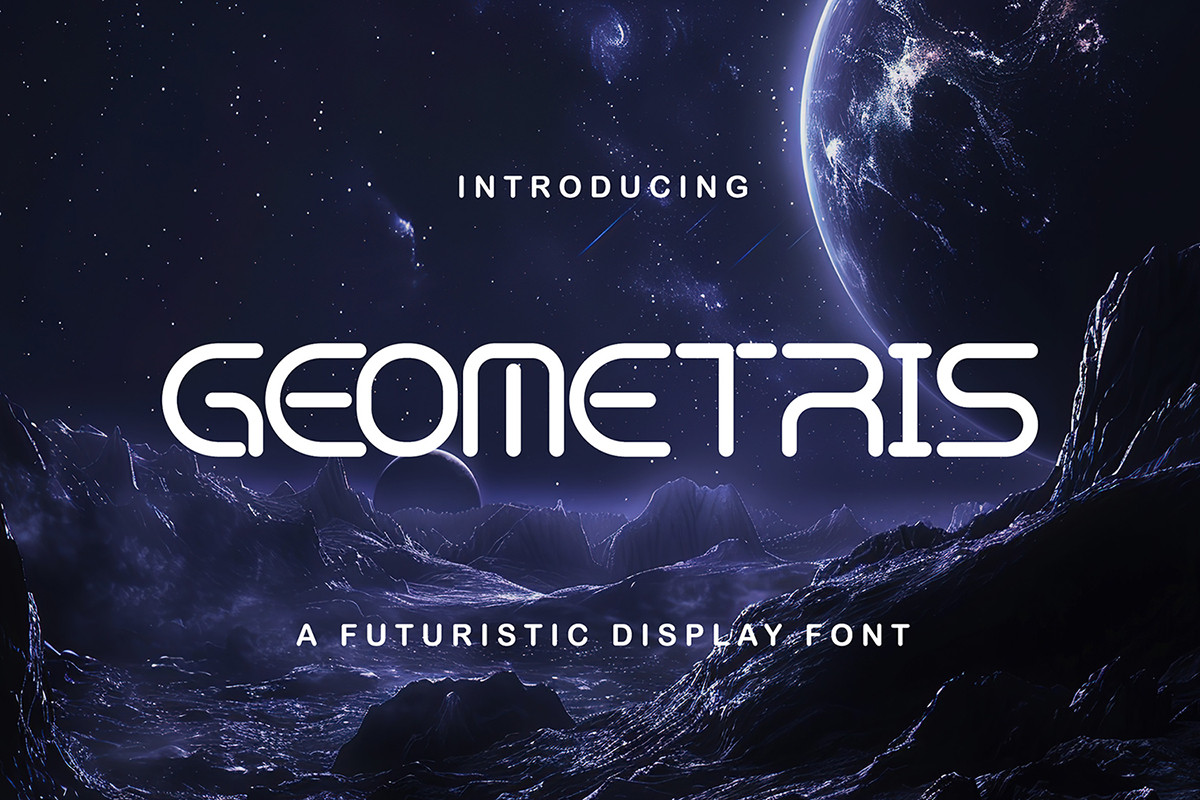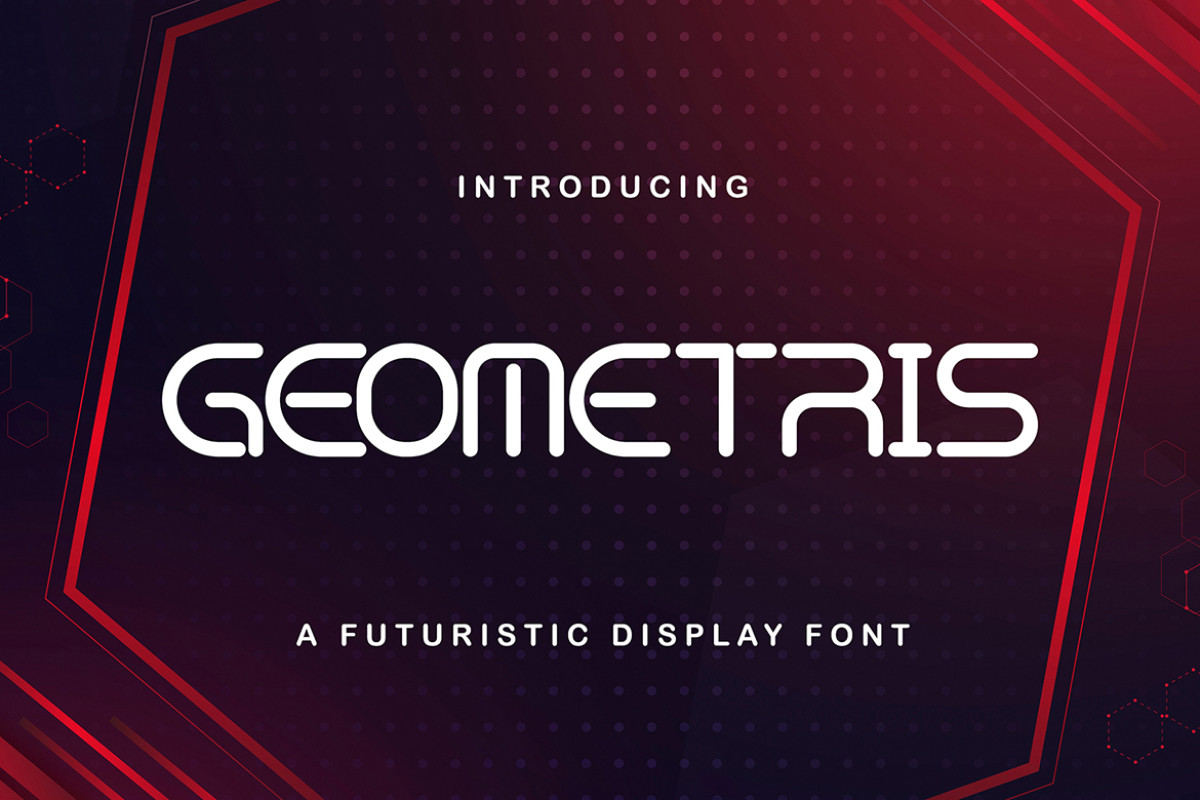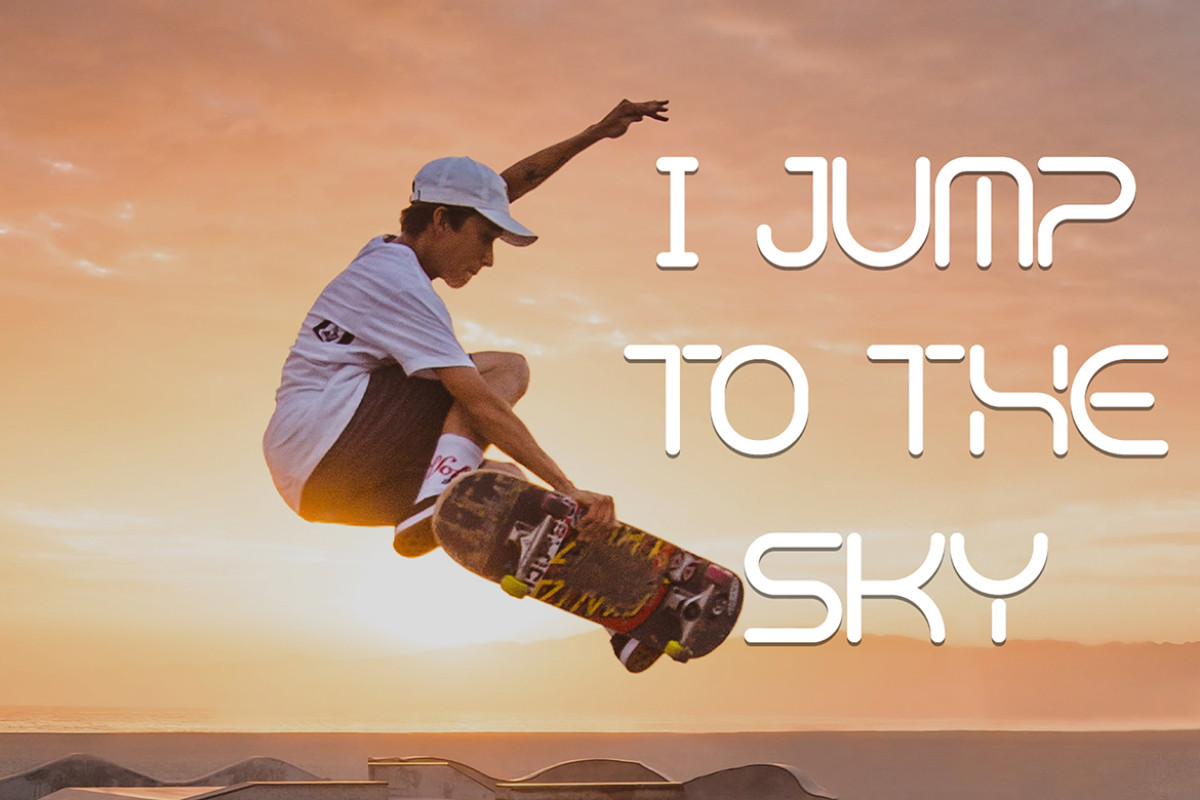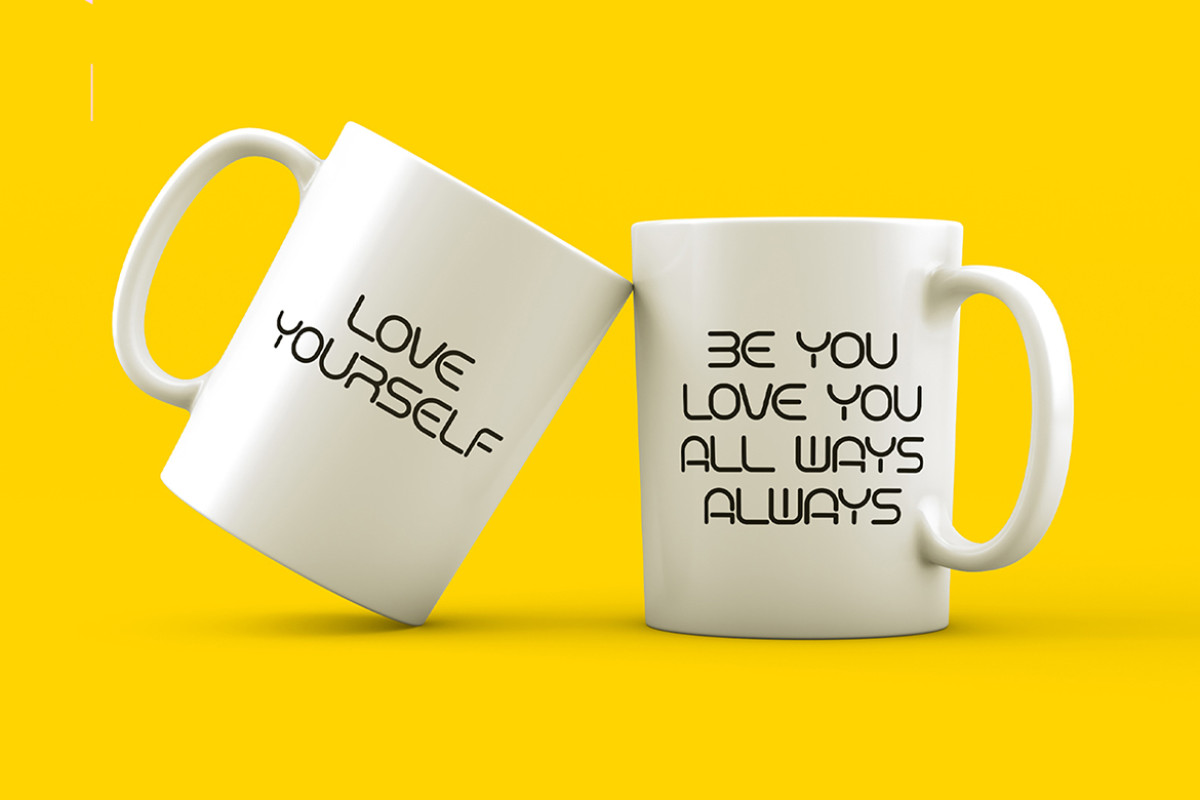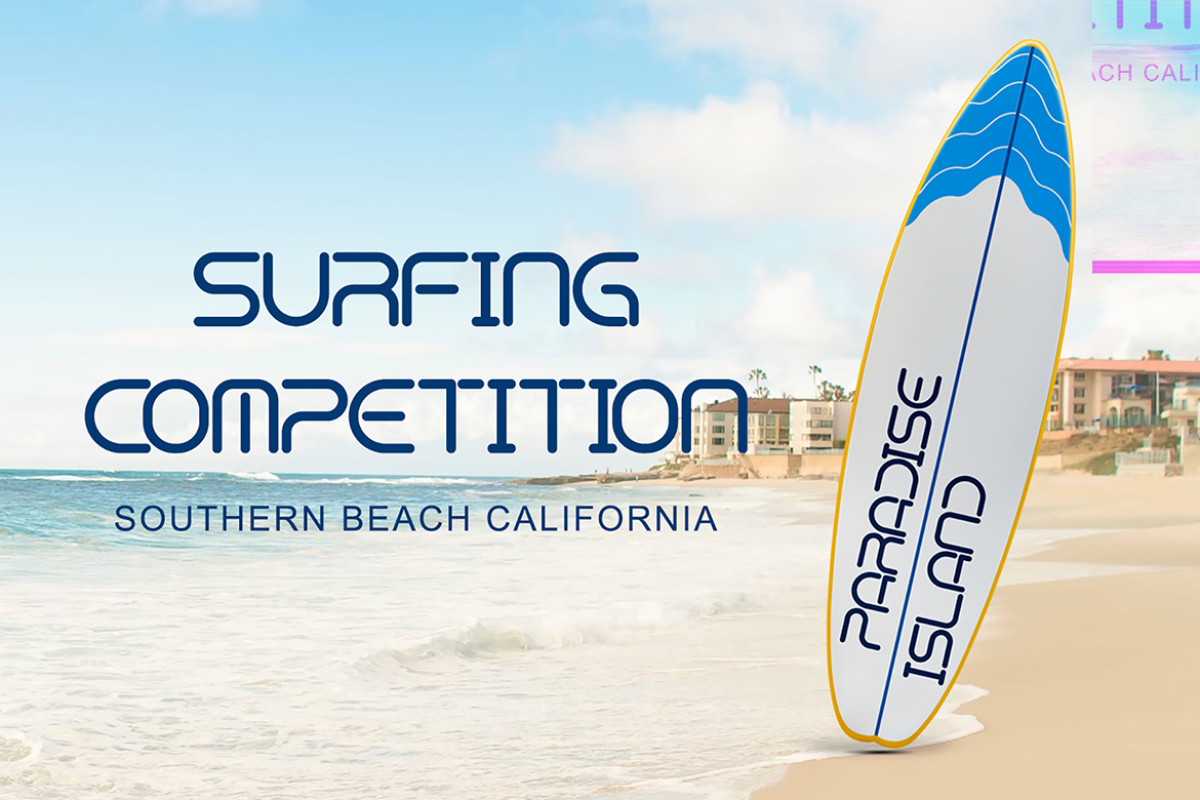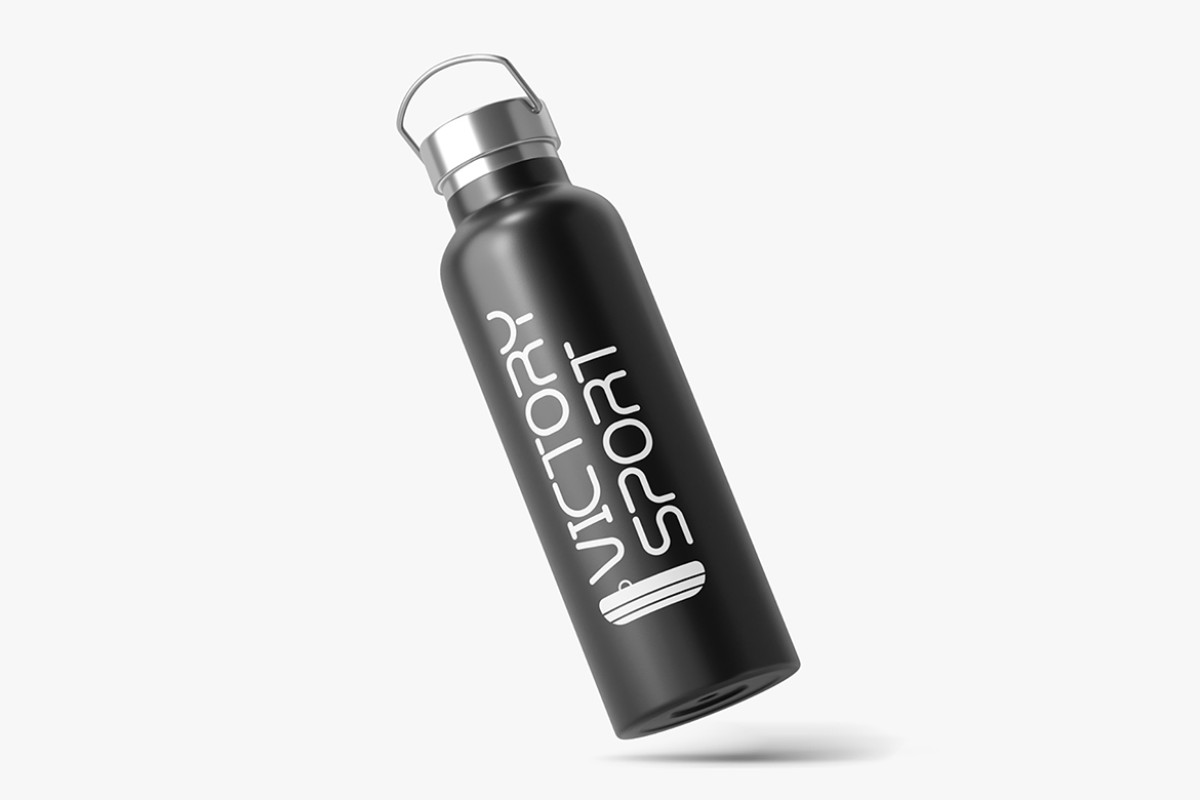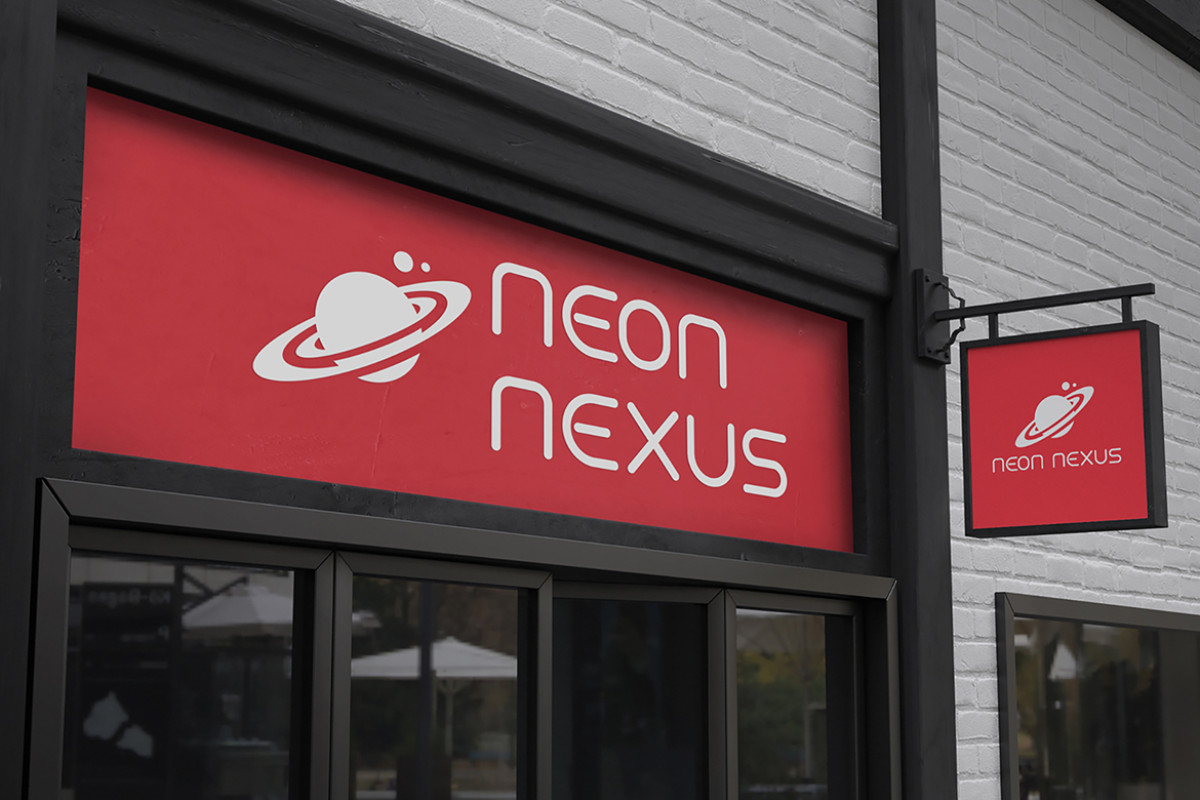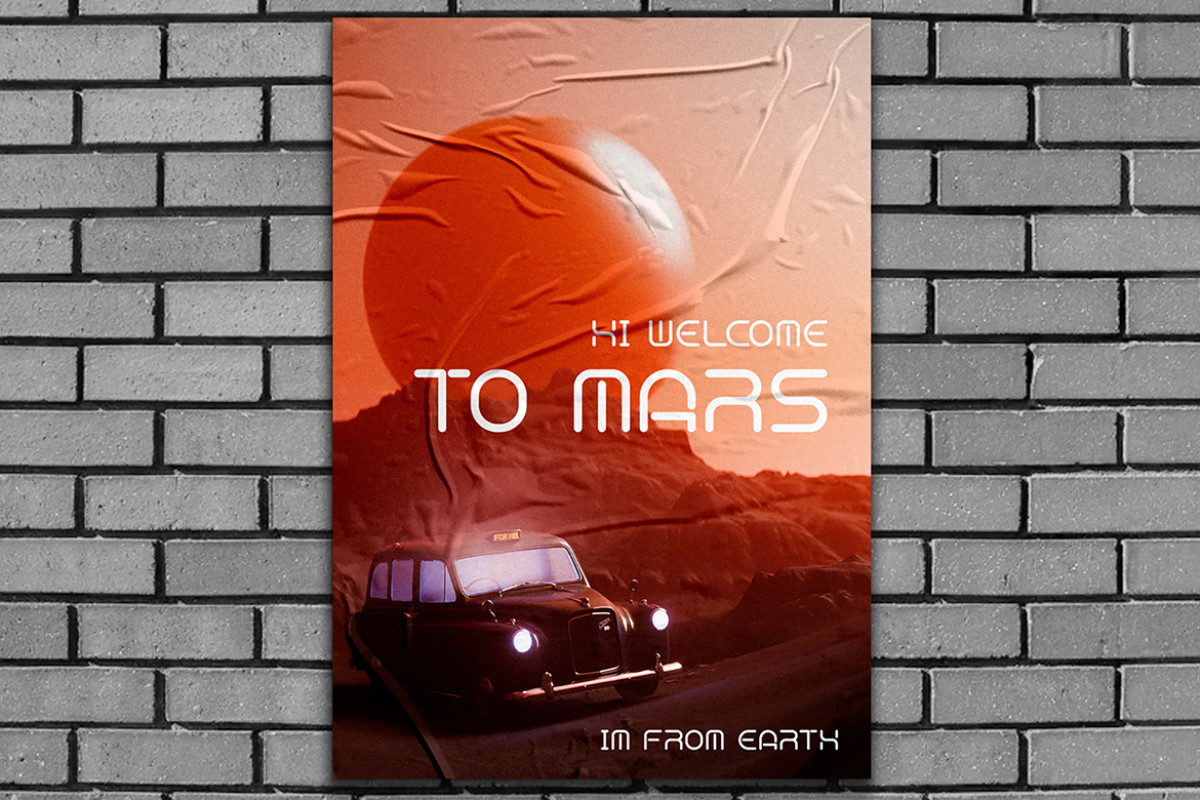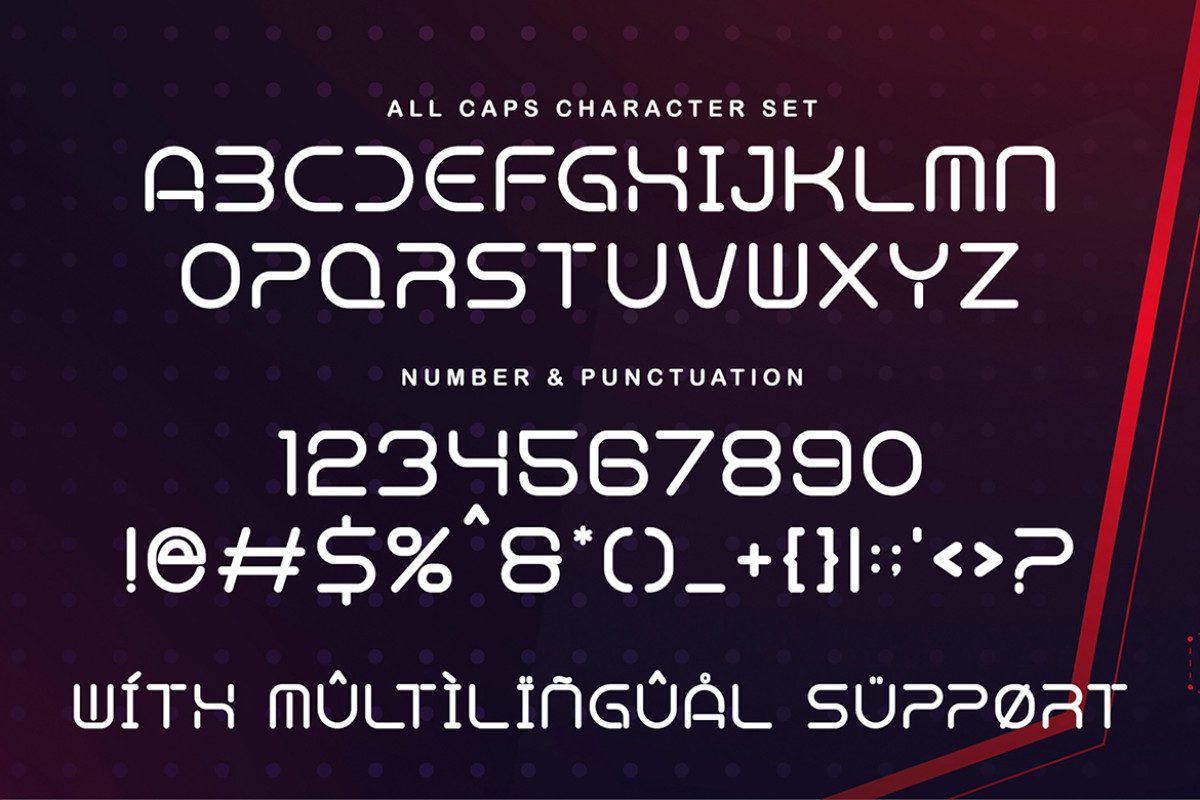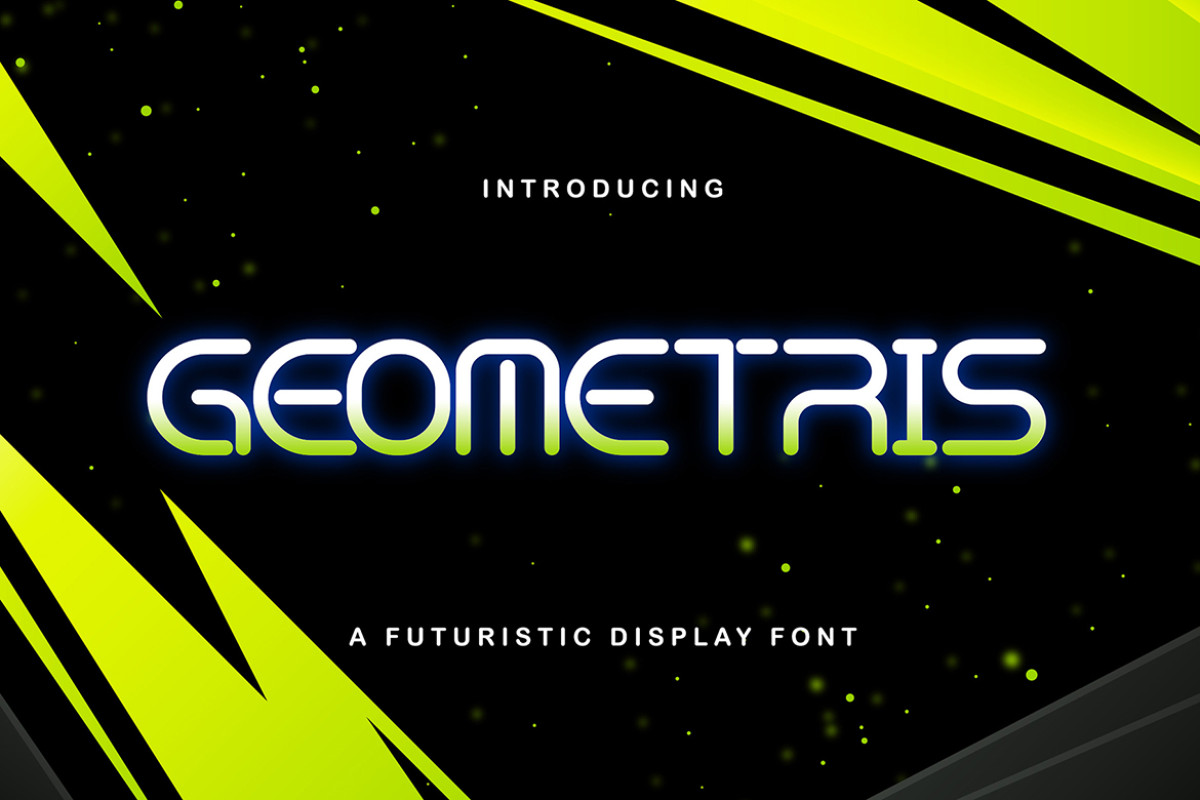
Geometris - Geometric Futuristic Display Font
Simple, Modern, & Bold - Geometric Futuristic Display Font
Perfect for Logotype, brand logo, apparel design, clothing, fashion, creative industry, signature, headline/title on poster, brochure, packaging, wedding invitation, quotes, magazine, social media etc.